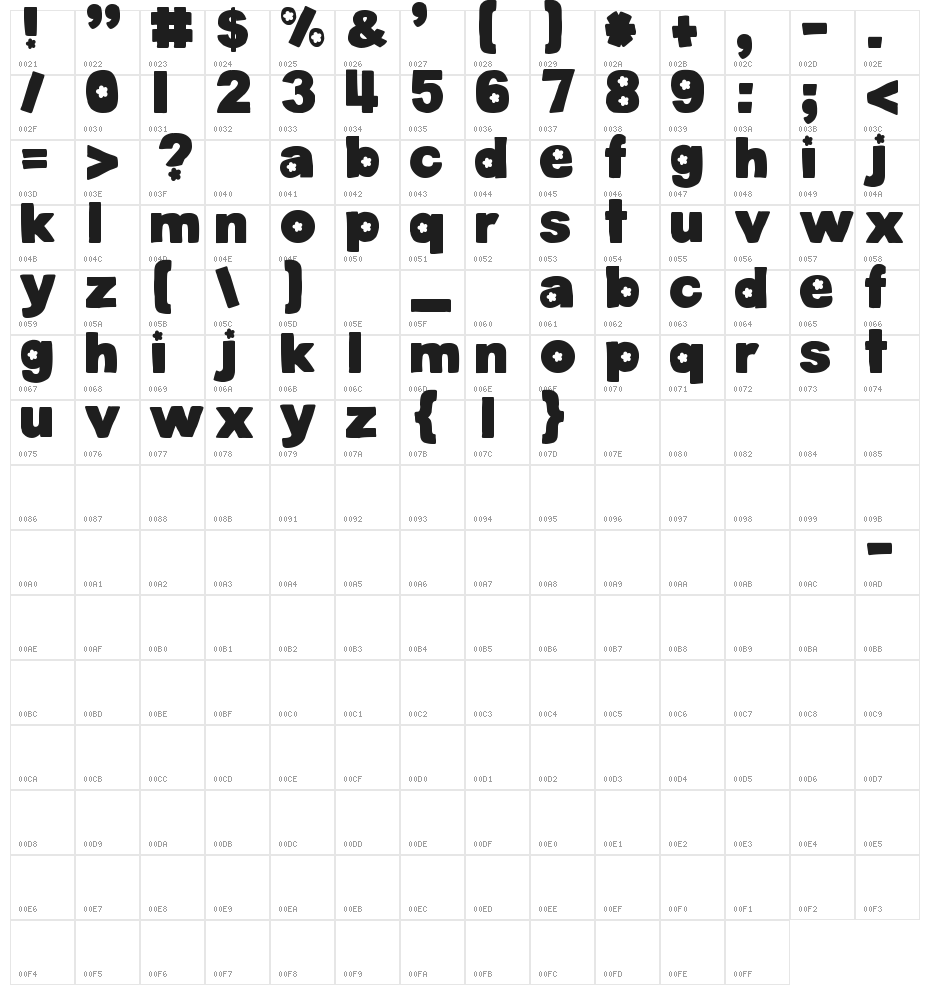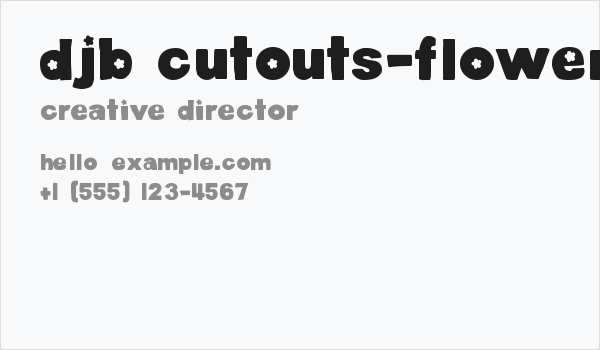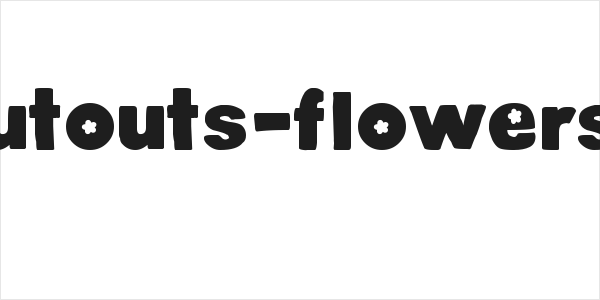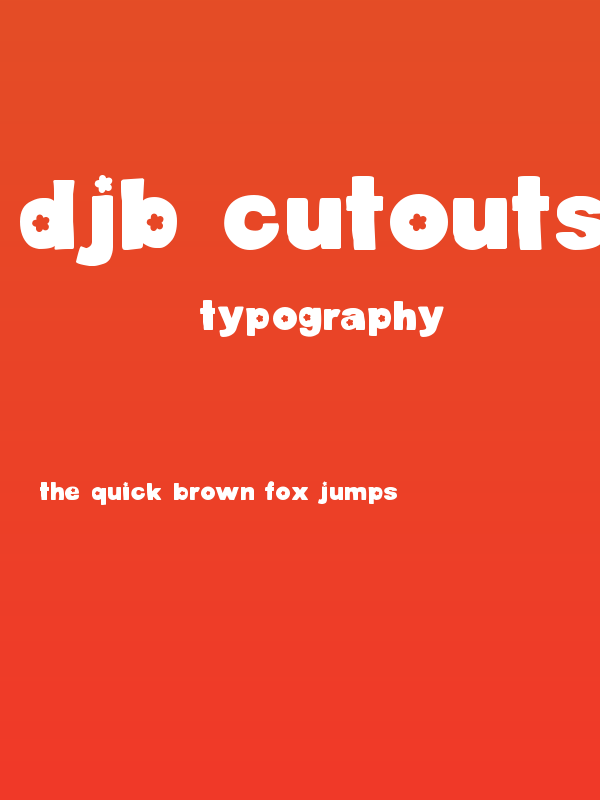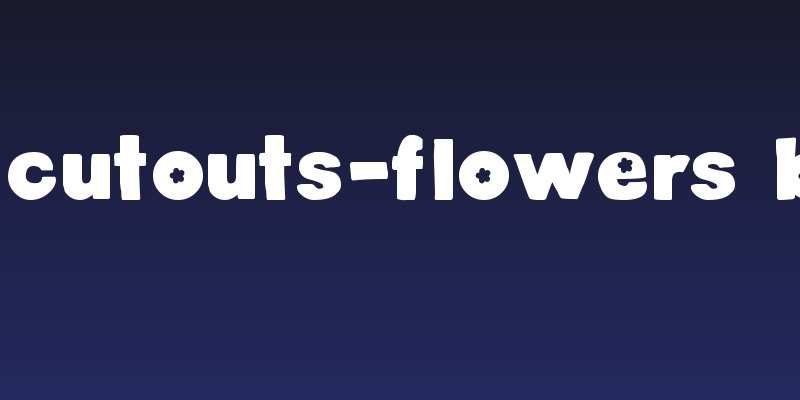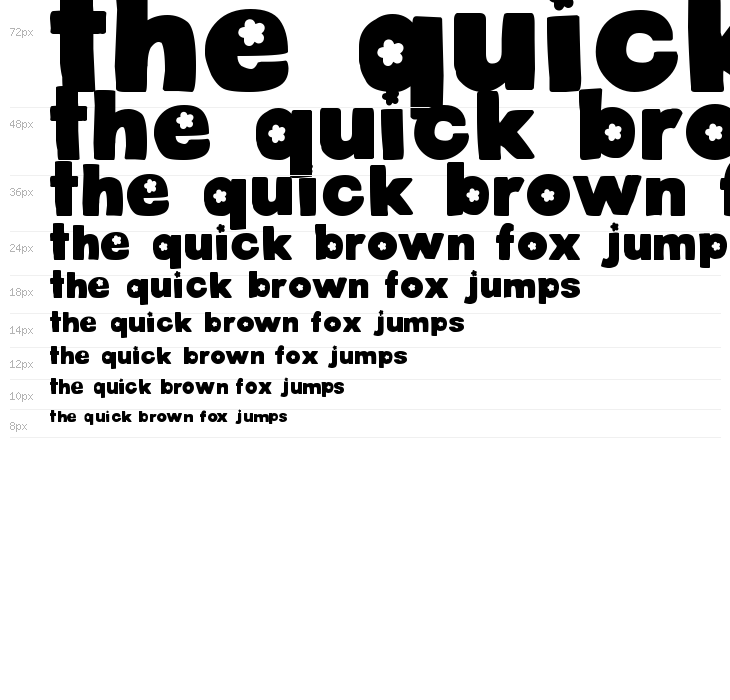
DJB Cutouts-Flowers Bold Font
DJB Cutouts-Flowers Bold Description
This playful and bold font features a unique design where each character is adorned with small flower cutouts, adding a whimsical and decorative touch. The letters are rounded and thick, providing a strong visual impact while maintaining a friendly and approachable appearance. The font's style is consistent across both uppercase and lowercase letters, as well as numbers and special characters, ensuring a cohesive look. The flower motifs are integrated seamlessly into the characters, making it ideal for projects that require a fun and creative aesthetic. The overall design is eye-catching and perfect for capturing attention in a variety of settings.
| Overall Style | Playful, Decorative |